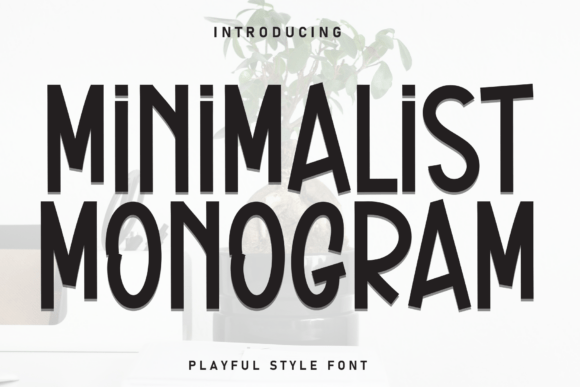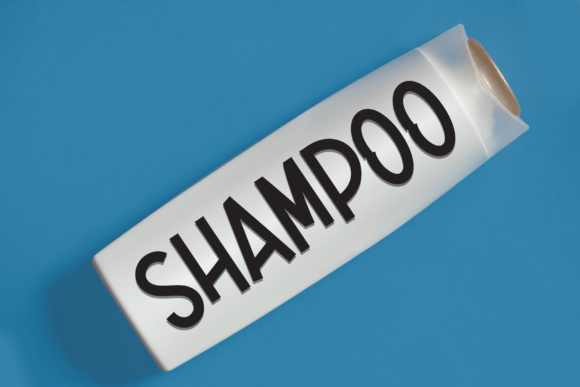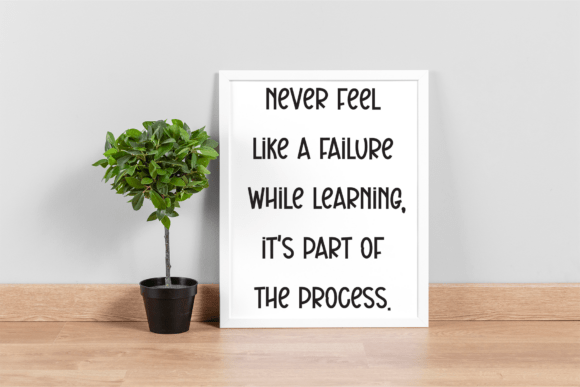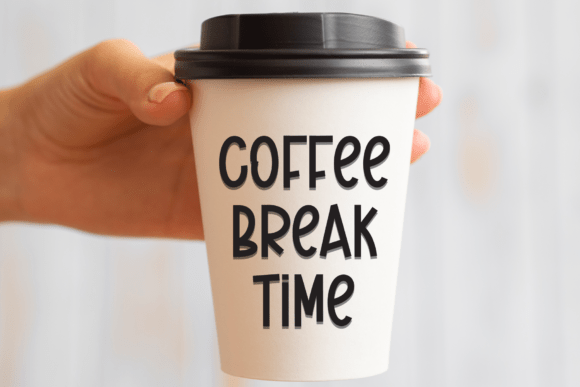
Minimalist Monogram Font
About the Minimalist Monogram Font
Presenting Minimalist Monogram Font, a unique and stylish typeface that will make your work stand out. This handwritten display font brings charm and character to every letter. With its playful strokes and casual flow, it captures the essence of authentic handwriting—perfect for quotes, greeting cards, branding, and anything that needs a personal, heartfelt touch. Whether you’re crafting for kids or designing a modern logo, this font adds warmth and whimsy to your work.
Its playful yet refined nature makes it ideal for logos, short headlines, and social media graphics. Consider it for packaging designs emphasizing a handcrafted or boutique feel, or for wedding invitations seeking a touch of informal elegance. However, avoid using it for body text or lengthy paragraphs; its handcrafted style lacks the legibility needed for extended reading.
Pair it with a clean sans-serif like Lato or Open Sans for a balanced contrast, or a classic serif like Garamond or Playfair Display for a more traditional feel. For a modern twist, a geometric sans-serif like Futura or a script font with a similar level of informality could work well.
The font’s overall personality is best described as friendly and approachable, yet sophisticated. It conveys a sense of casual charm without sacrificing readability in short bursts, lending itself to brands that prioritize a personal and approachable image.
Minimalist Monogram Font Usage Examples
Minimalist Monogram Font Example